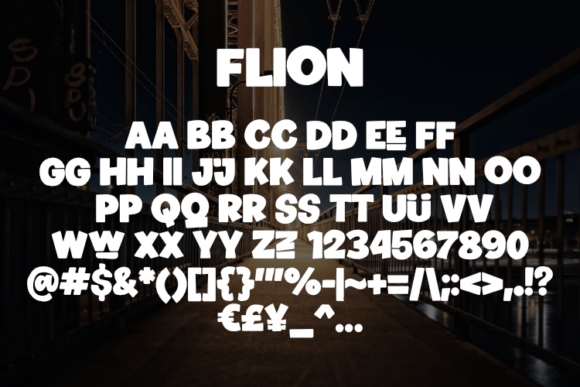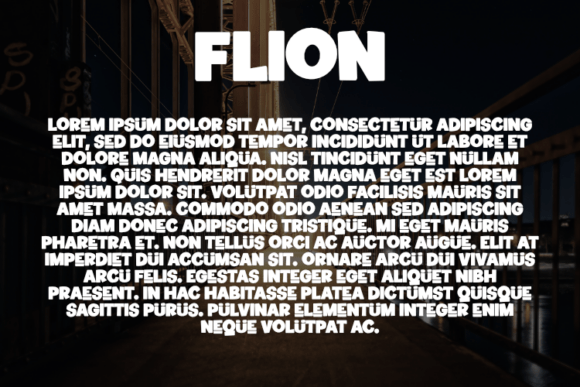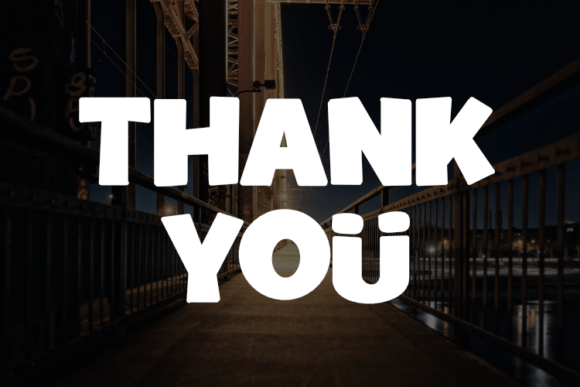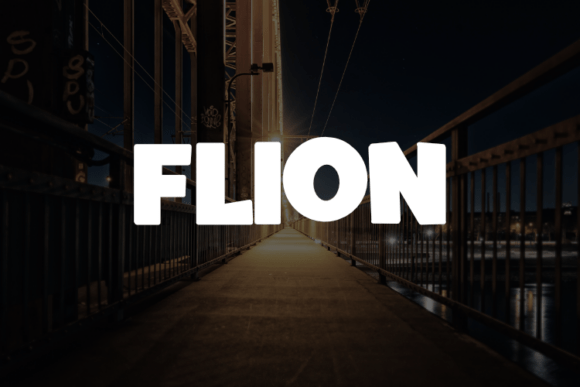
Introducing Flion Font: Elevate Your Designs with Modern Elegance
In the world of typography, a font can make all the difference in the success of a design project. Whether you’re a professional designer, a crafty DIY enthusiast, or a business owner looking to establish a strong brand identity, the right font choice can elevate your work and communicate your message with clarity and style. This is where Flion Font comes into play – a modern and elegant typeface designed to offer flexibility and excellent readability across a wide range of media.
What is Flion Font?
Flion is a contemporary typeface that has been carefully crafted to meet the demands of modern design. Its sleek lines, balanced proportions, and elegant curves make it an ideal choice for designers and crafters looking for a sophisticated yet versatile font. Whether you’re working on a branding project, creating digital content, or crafting handmade products, Flion Font is designed to enhance your work with its refined aesthetic.
Key Features of Flion Font
- Modern and Elegant Design: Flion boasts a modern design with elegant touches, making it perfect for projects that require a sophisticated look.
- Excellent Readability: The font is optimized for readability, ensuring that your text is clear and easy to read across various media, from digital screens to print materials.
Advantages of Using Flion Font
Use Cases for Flion Font
Flion Font’s versatility makes it suitable for a variety of projects, including:
- Branding and Logo Design: Create a lasting impression with a unique and elegant font that represents your brand’s personality.
- Digital Content Creation: Enhance your website, blog, or social media content with a modern and readable font.
- Print Materials: Use Flion Font for brochures, flyers, business cards, and other print materials to give them a professional look.
- Crafting and DIY Projects: Add a touch of elegance to your handmade products, such as greeting cards, invitations, and crafts.
Flion Font is a versatile and elegant typeface that can elevate your designs and communicate your message with clarity and style. Its modern design, excellent readability, and wide compatibility make it an ideal choice for designers, crafters, and businesses looking to establish a strong brand identity. By incorporating Flion Font into your projects, you can add a touch of sophistication and professionalism that sets you apart.
Whether you’re working on a digital project or a handmade craft, Flion Font is a valuable addition to your typography toolkit. Explore its potential and discover how it can enhance your work with its unique blend of modern elegance and versatility.